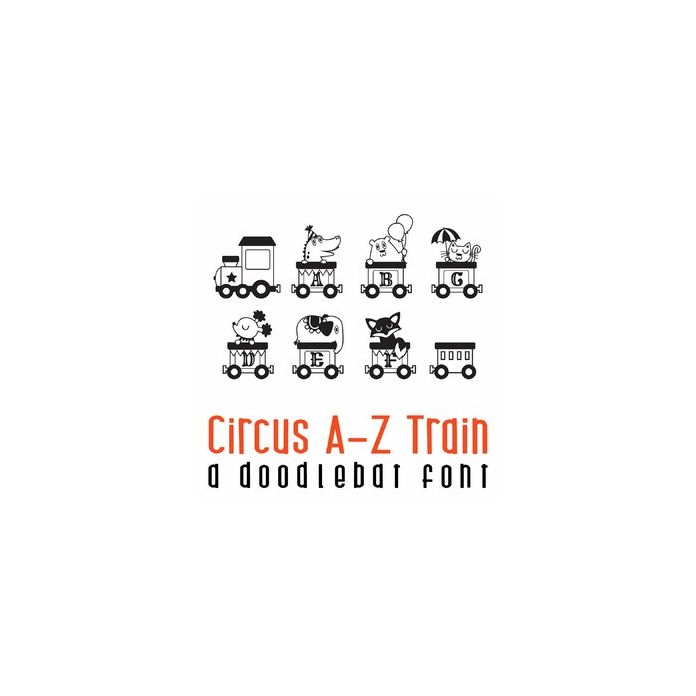
This adorable doodlebat font features 28 circus characters on a train from A-Z. Perfect for classrooms, school, teachers, parties, gifts, crafts, scrap book pages, planner stickers and more! Use the brackets or parenthesis for a train engine and caboose.